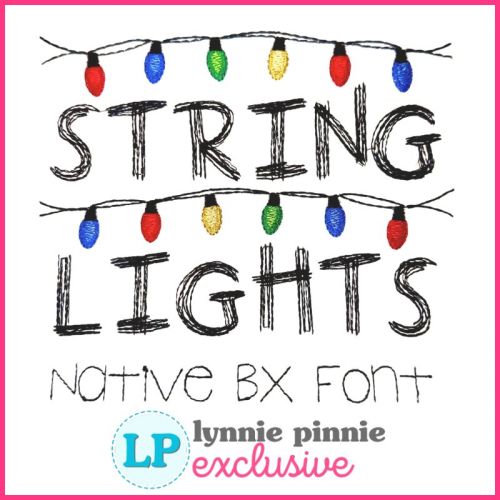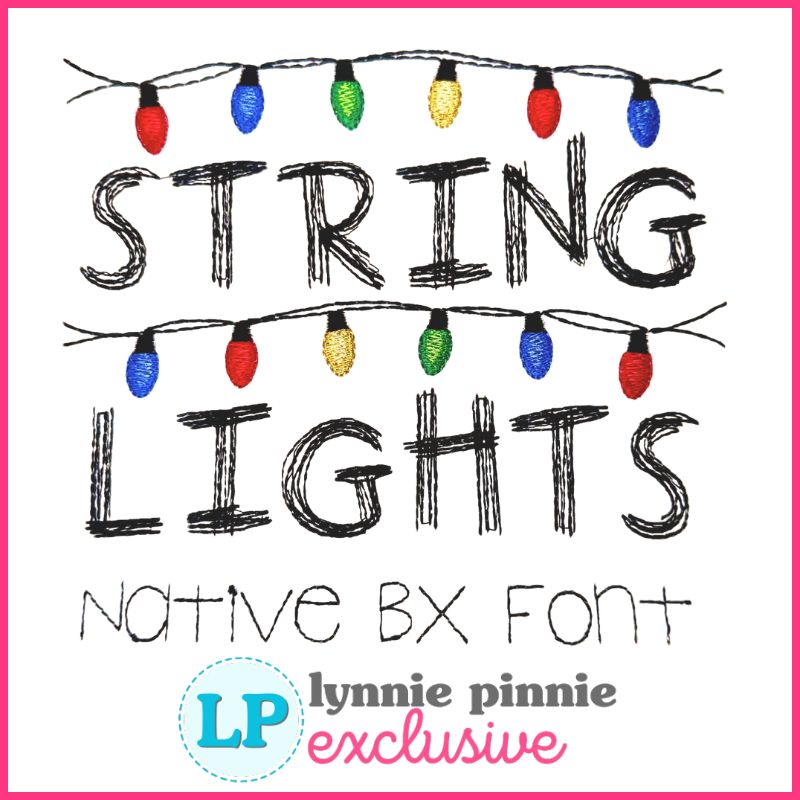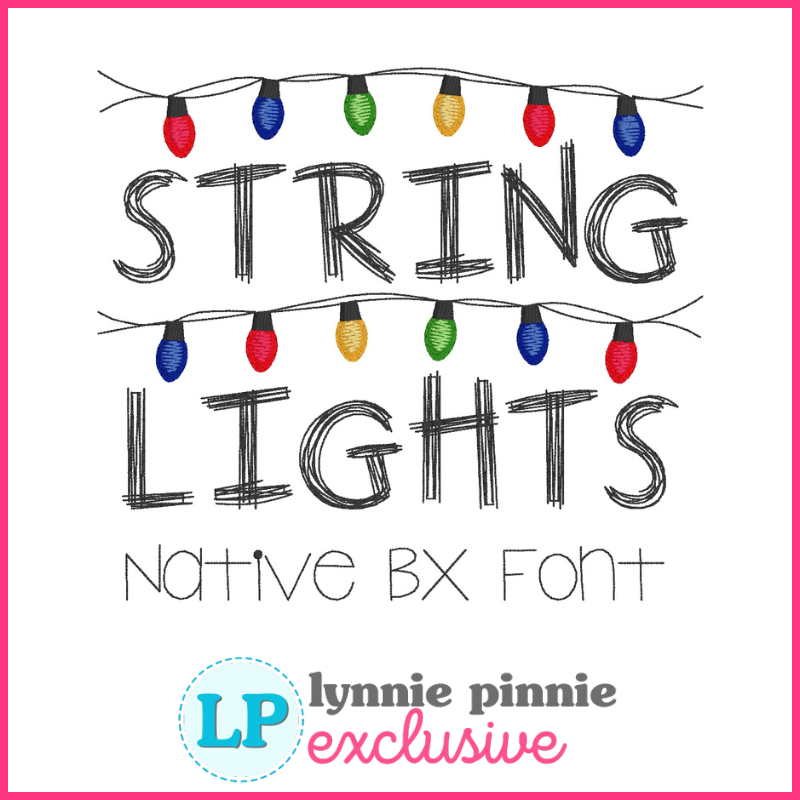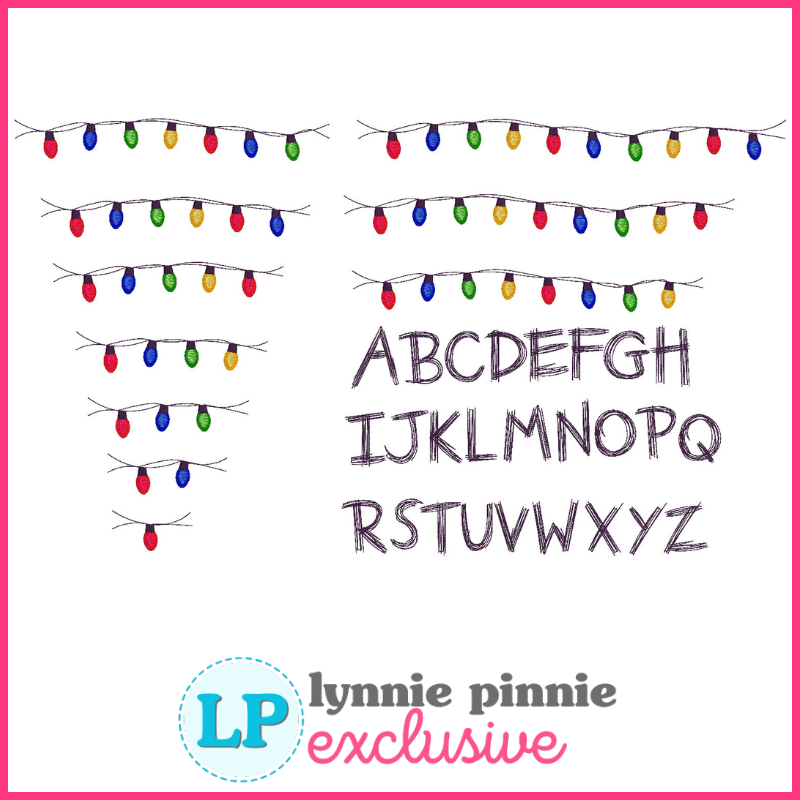
Scribble String Lights Script Embroidery Font – 6 Sizes + Scalable Native BX File
Scribble String Lights is a playful, whimsical scribble-style machine embroidery font inspired by the iconic string-light wall lettering style seen in fan-favorite supernatural series. This set includes a scribbly uppercase A–Z alphabet plus coordinating string light characters that let you build custom light-strand names, phrases, and holiday or themed designs.
A unique feature of this font is the numbered light strands:
Each digit 0–9 represents the number of lights in the string.
Type “6” to instantly get a six-light strand, “4” for a four-light strand, and so on.